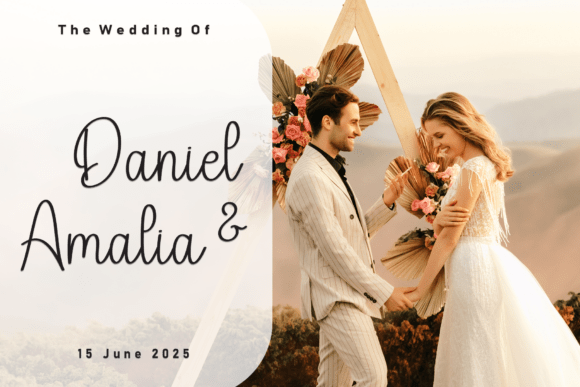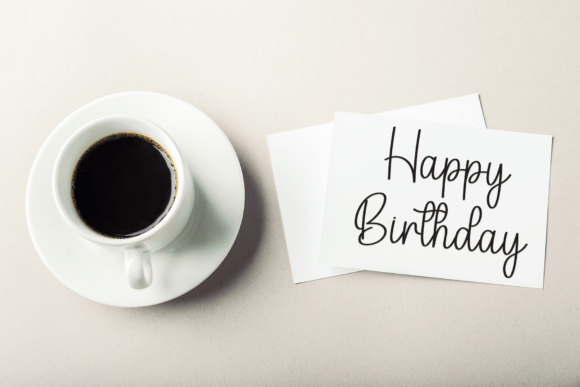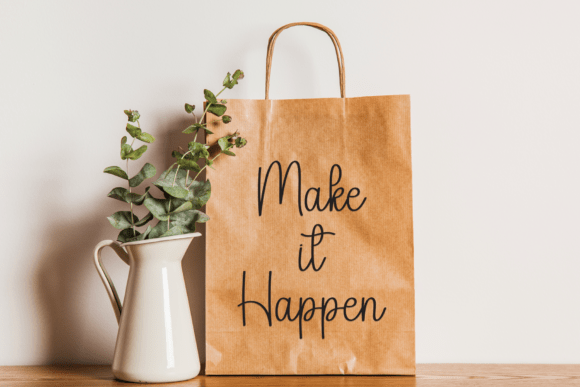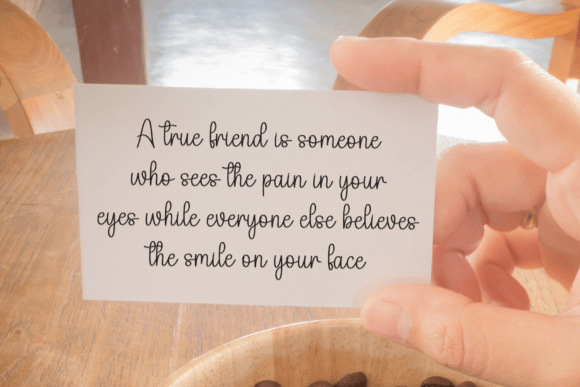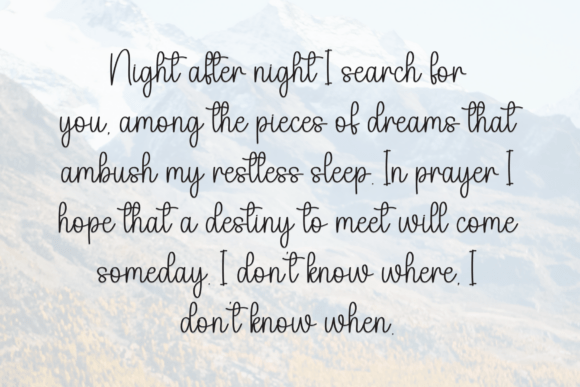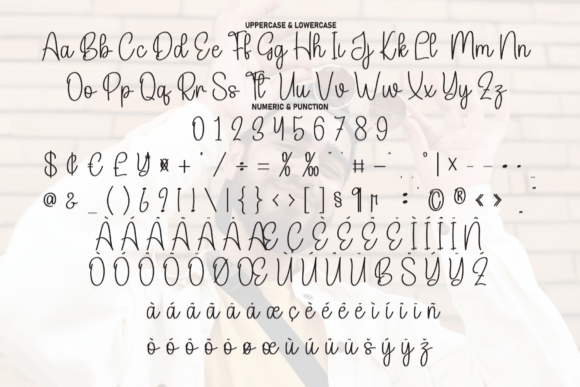
Introduction to Hipster Lucky Font
Hipster Lucky is a casual and trendy handwritten font with a clean calligraphic style.
Its relaxed strokes and natural flow give it a laid-back charm, making it ideal for social media posts, branding, lifestyle blogs, and personalized quotes Whether you’re designing for fashion, content creation, or digital stationery, this font adds an effortlessly cool vibe.